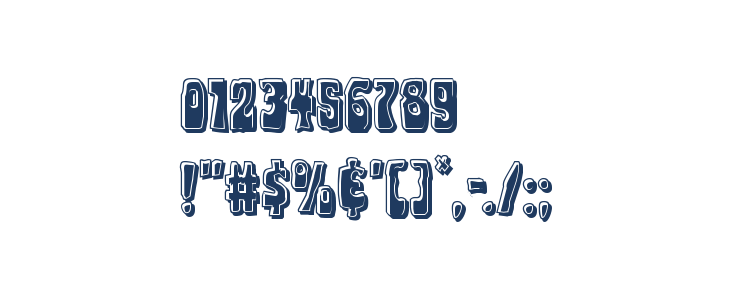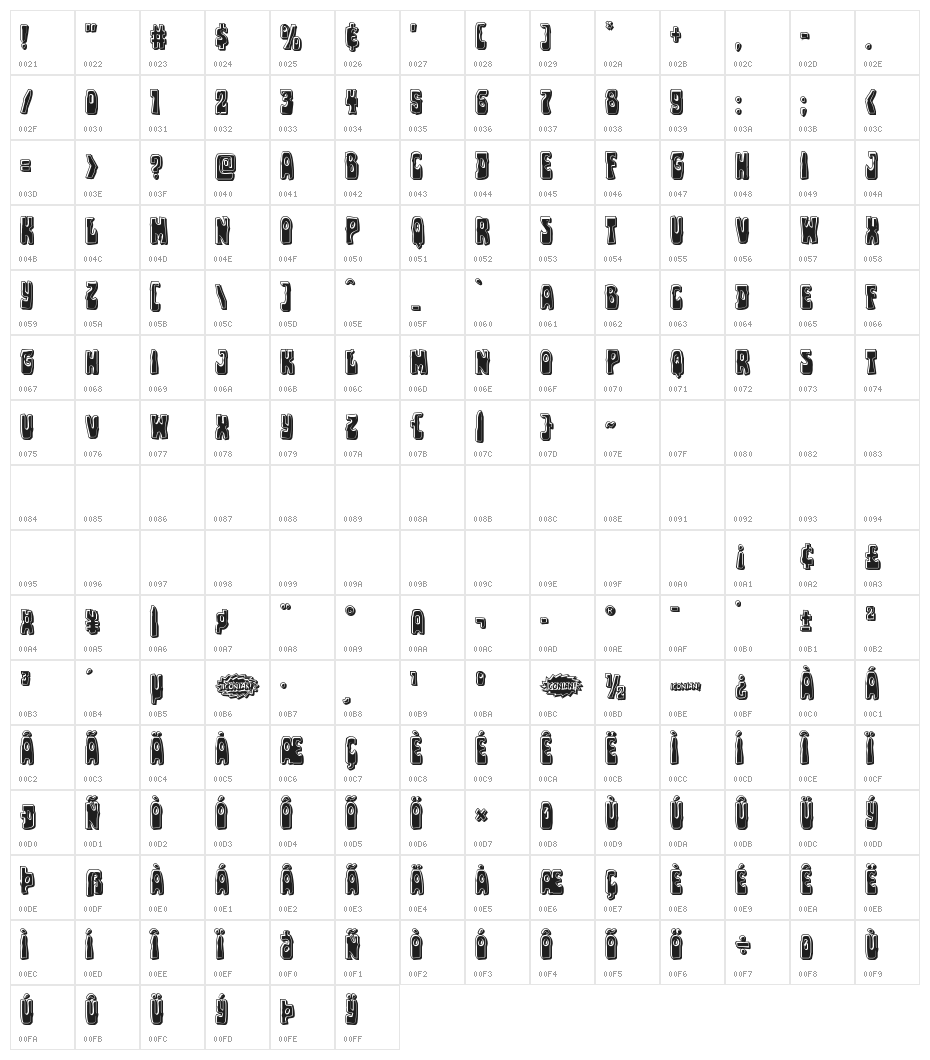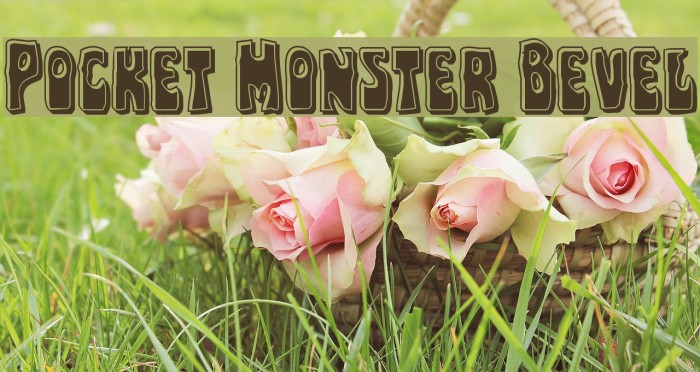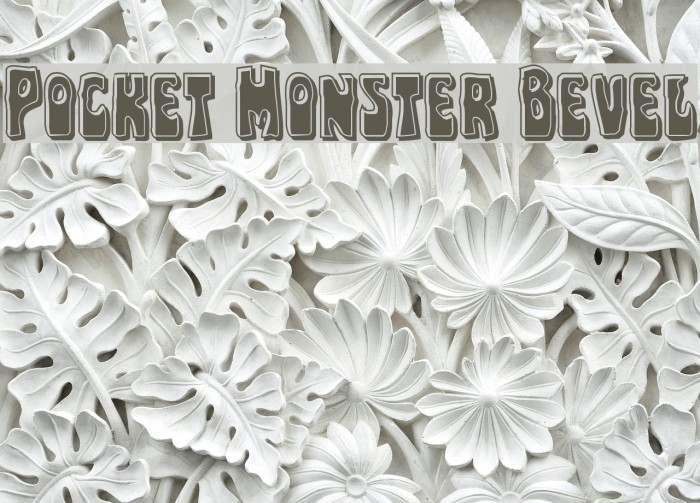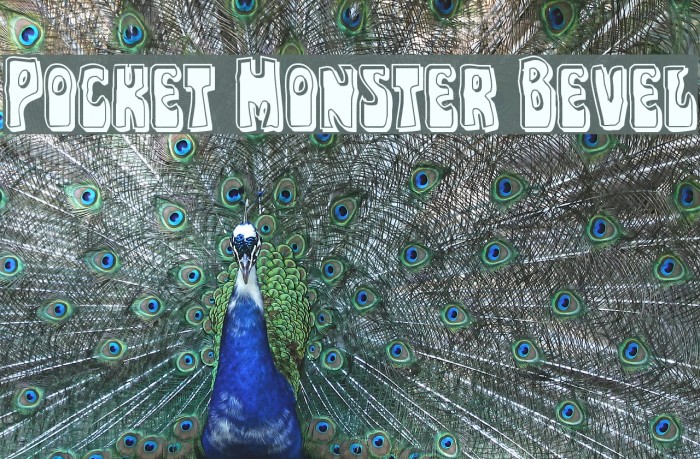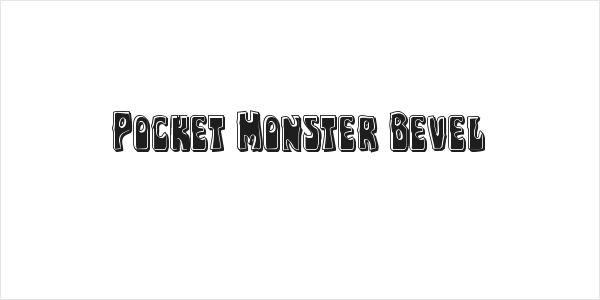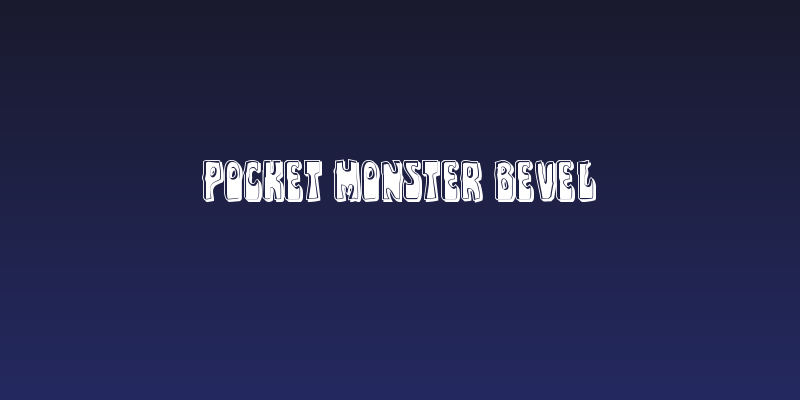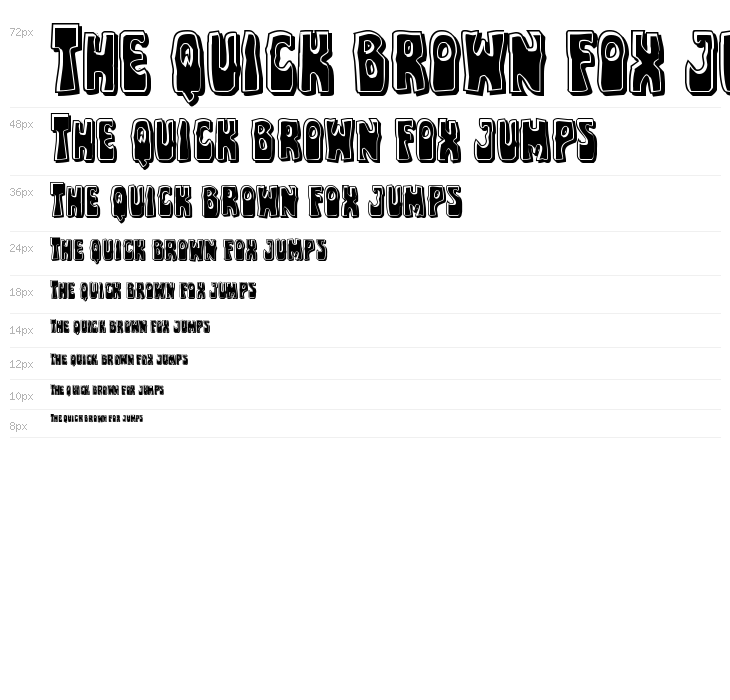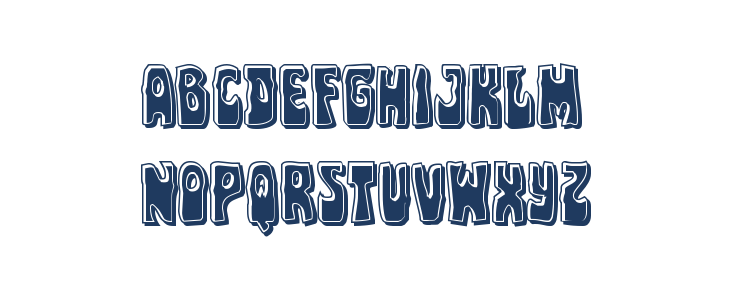
Pocket Monster Bevel Font
Pocket Monster Bevel Description
This font features a bold, playful design with a distinct bevel effect that gives it a three-dimensional appearance. The characters are thick and robust, with a strong presence that makes them stand out. Each letter is uniquely styled with a shadow effect, enhancing the depth and making the text pop. The font's playful nature is evident in its rounded edges and slightly irregular shapes, adding a whimsical touch. It's perfect for projects that require a fun and engaging typeface, such as children's books, games, or playful branding.
| Overall Style | Playful, Decorative |
| Proposed Projects | Ideal for children's books, video game titles, playful branding, and posters. |